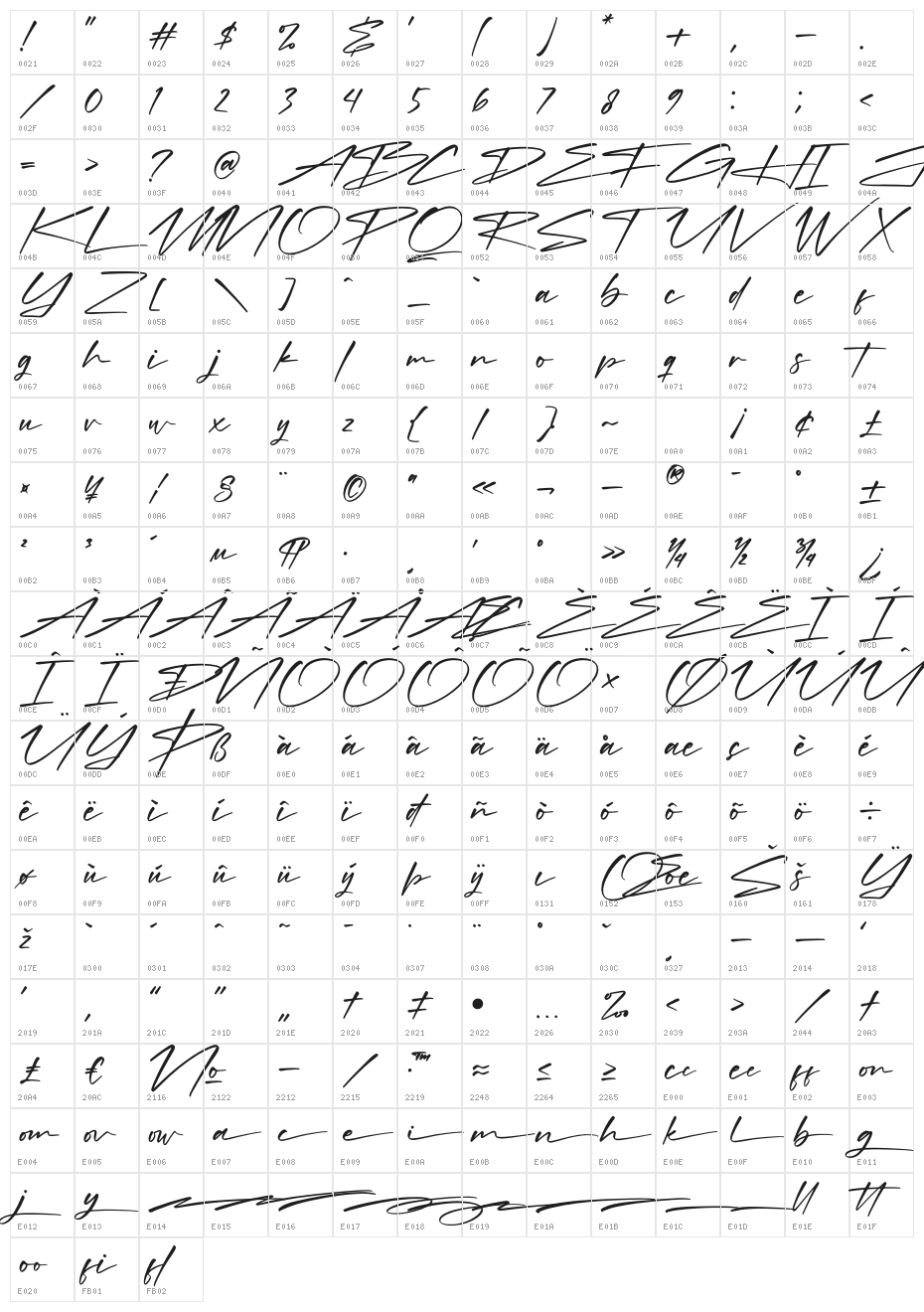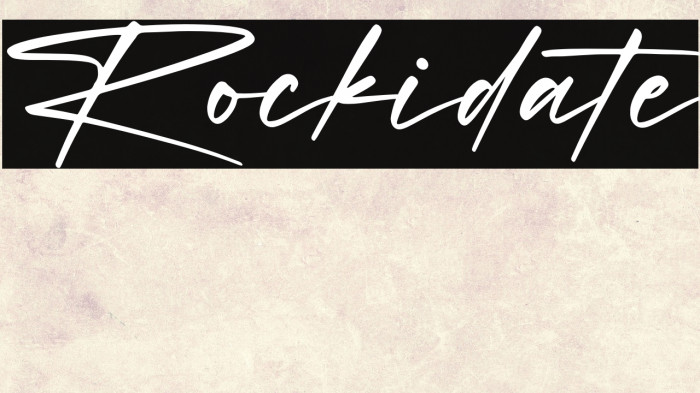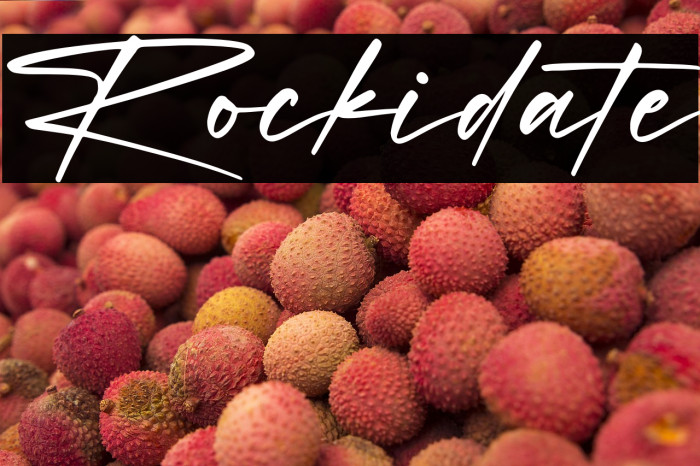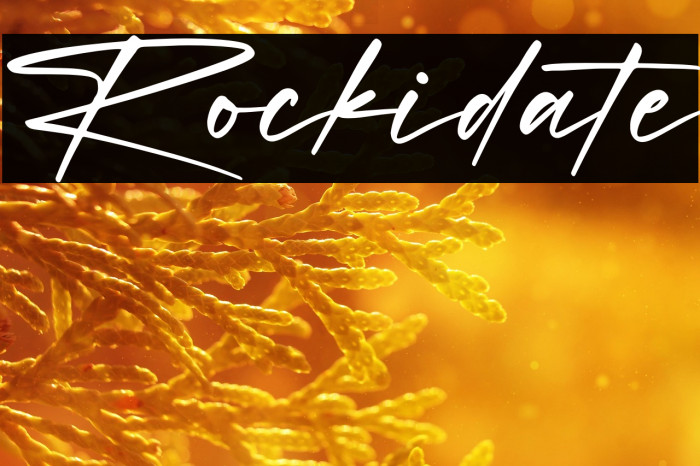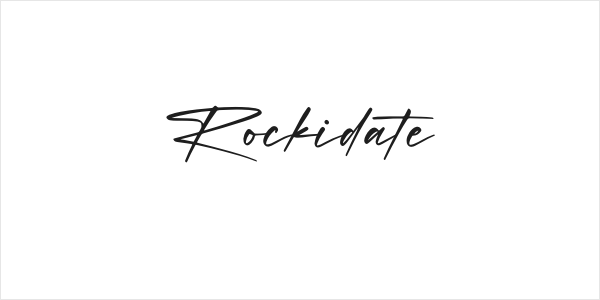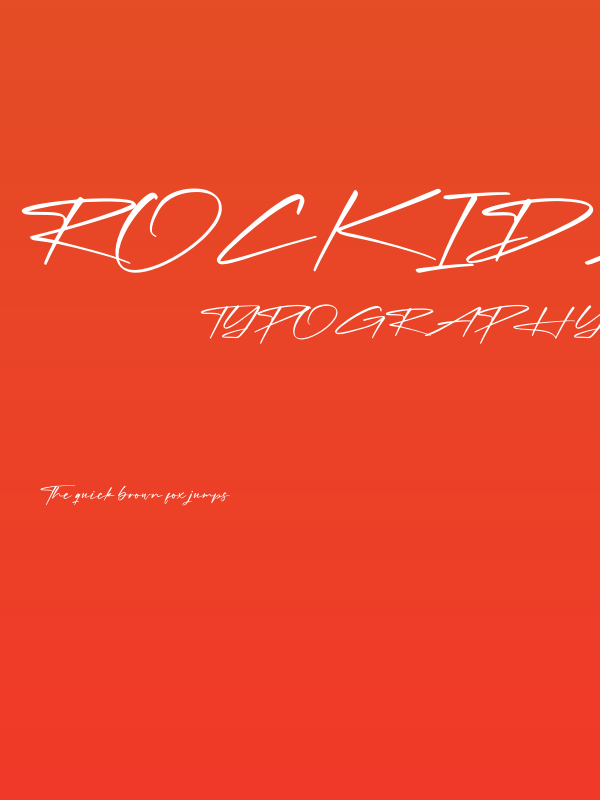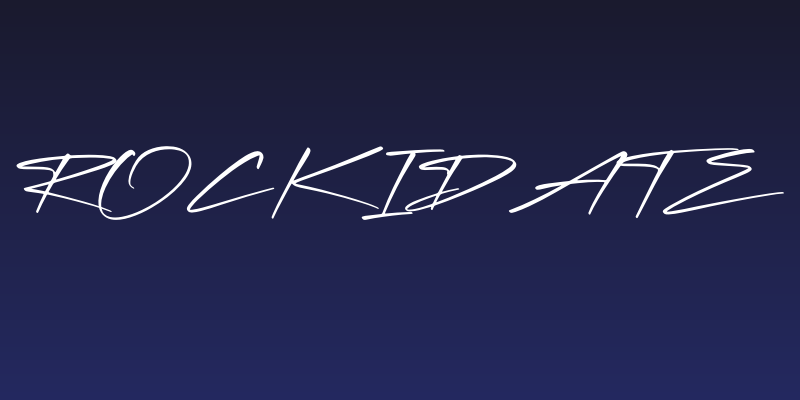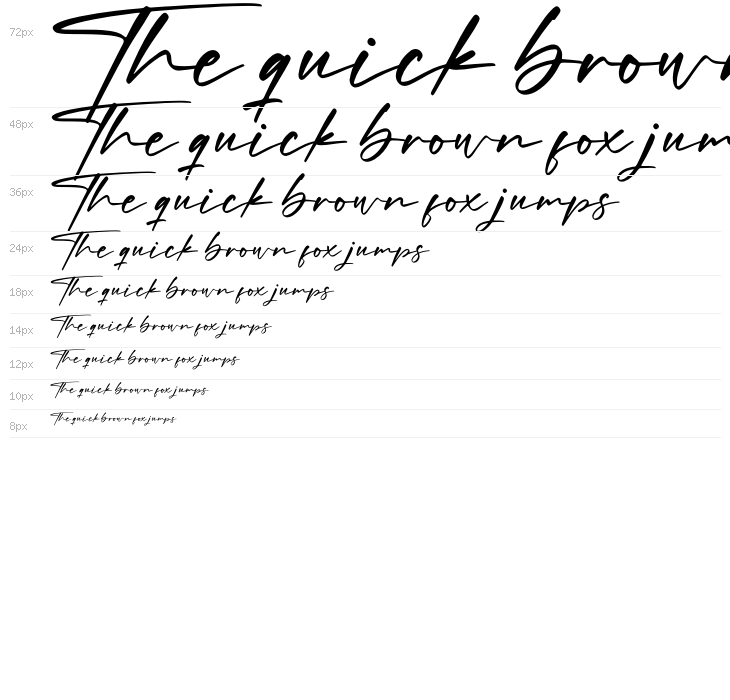
Rockidate Font
Rockidate Description
This font exudes a dynamic and energetic vibe with its handwritten style, characterized by fluid, cursive strokes that vary in thickness. The uppercase letters are elongated and slightly slanted, giving a sense of motion and speed. The lowercase letters maintain a consistent flow, with some characters featuring distinctive loops and curves. Numbers are bold and clear, matching the overall aesthetic. Special characters are creatively integrated, maintaining the handwritten feel. This font is perfect for projects that require a personal touch, such as invitations, greeting cards, or branding materials that aim to convey a sense of creativity and individuality.
| Use Case | Logos, Headlines, Creative projects |
| Proposed Projects | Ideal for invitations, greeting cards, branding materials, and creative projects. |